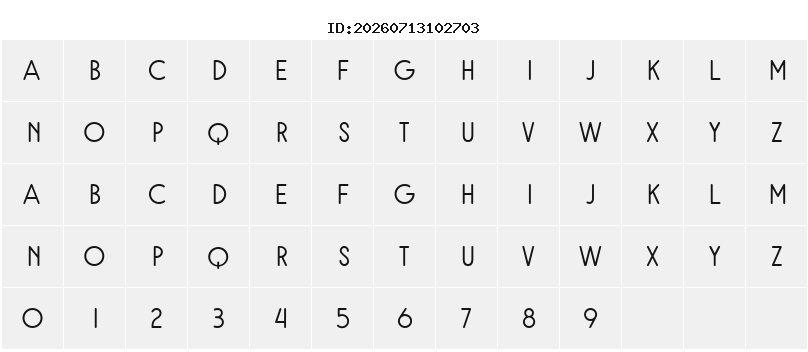
About Rampung.ttf
Rampung.ttf is a modern, elegant sans-serif font designed for ultimate readability and visual harmony. Perfect for branding, headlines, web design, and print materials.